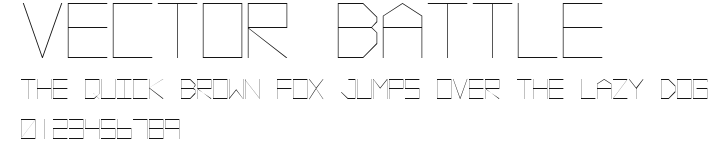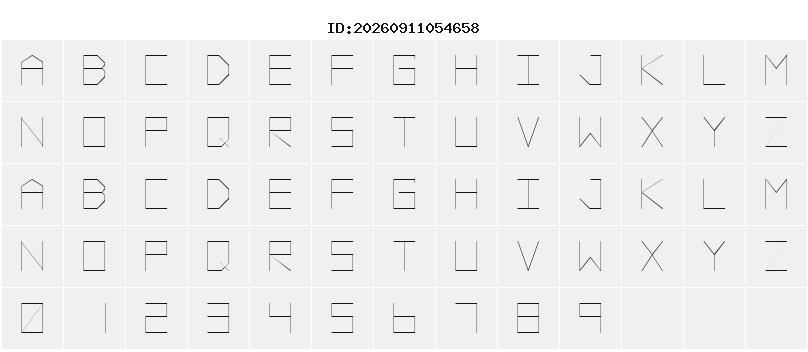
• Font Name: Vector Battle
• Full Font Name: Vector Battle
About Vector Battle.ttf
Vector Battle.ttf is a modern, elegant sans-serif font designed for ultimate readability and visual harmony. Perfect for branding, headlines, web design, and print materials.